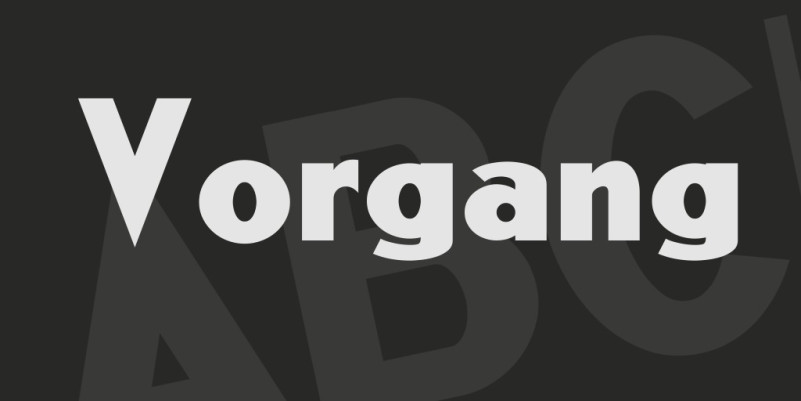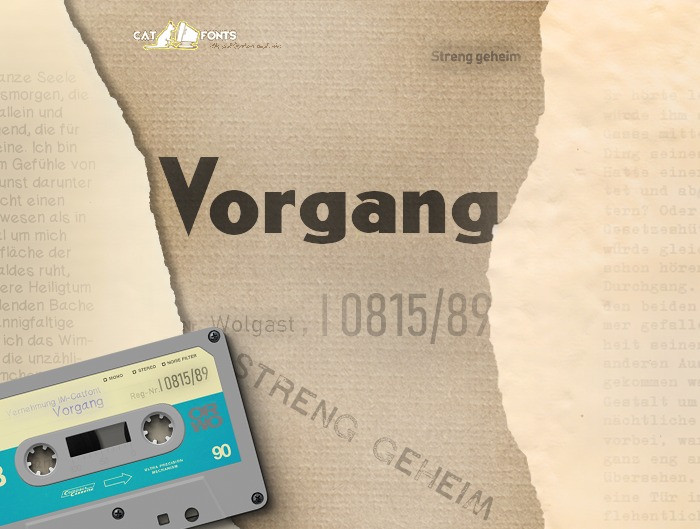
Vorgang Font
Vorgang Sans Serif Font is a free bold sans serif font with vintage look. It contains uppercase and lowercase letters, numbers, symbols, ligatures, multilingual accents. Great for headlines, posters, prints and much more.